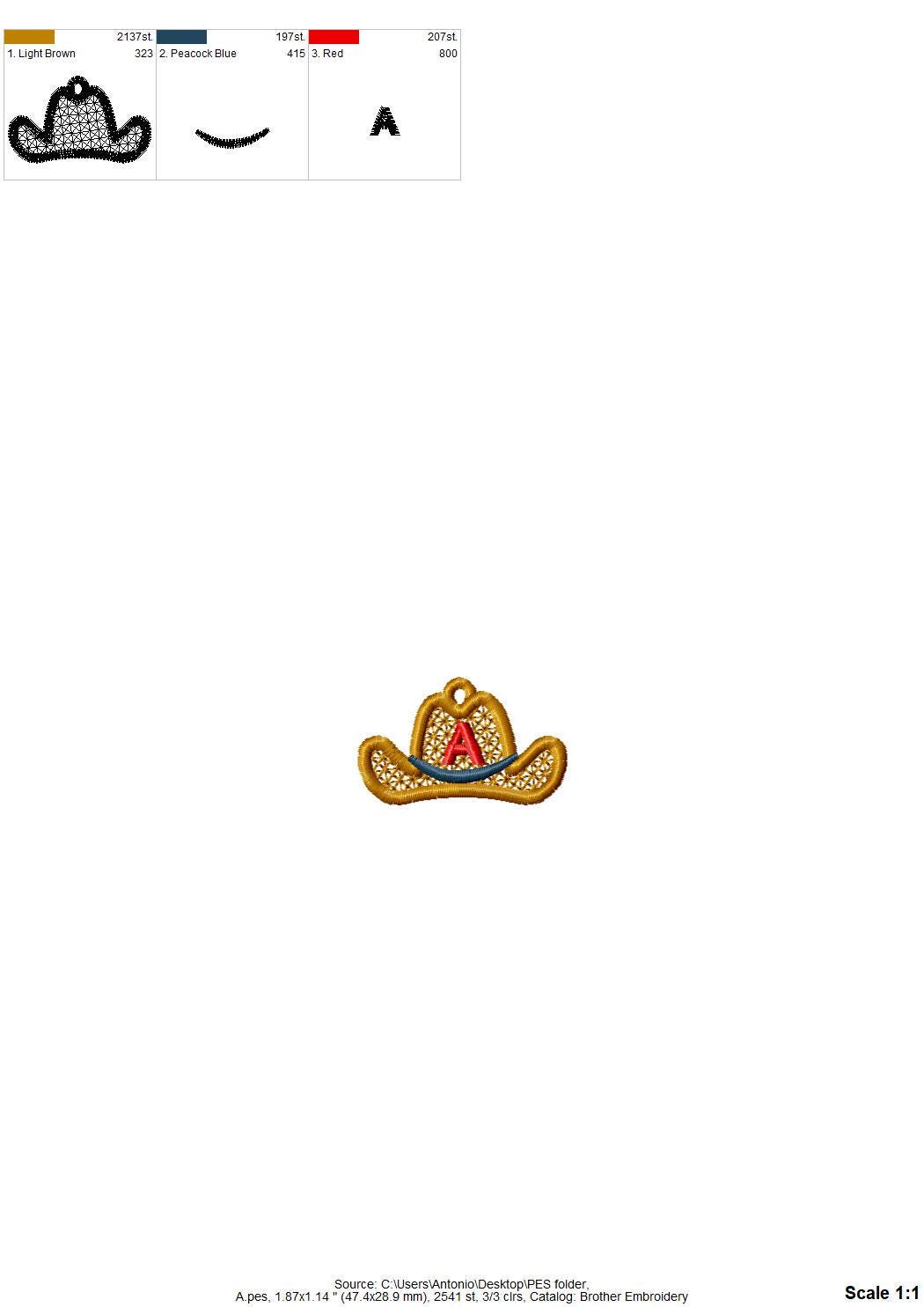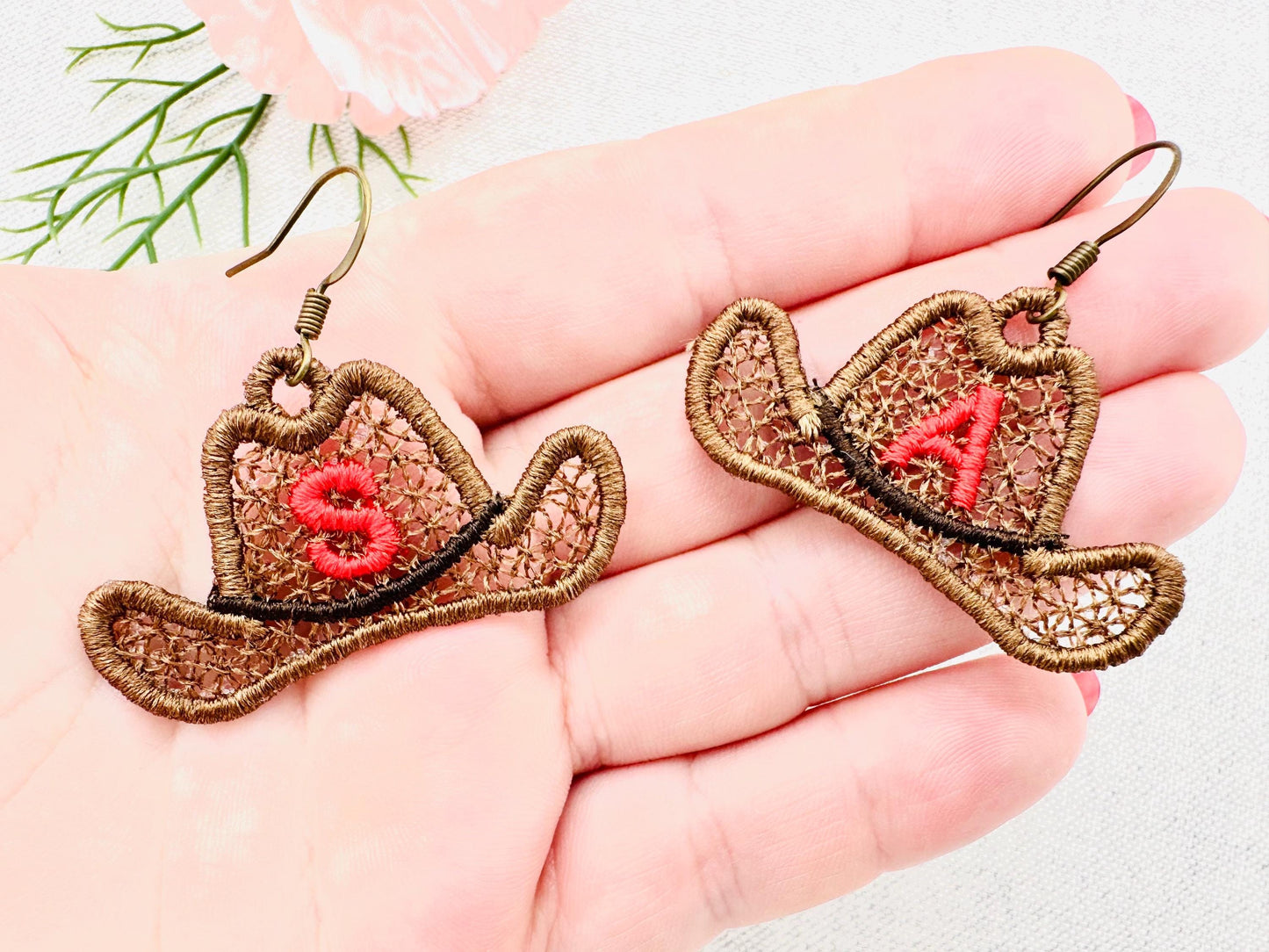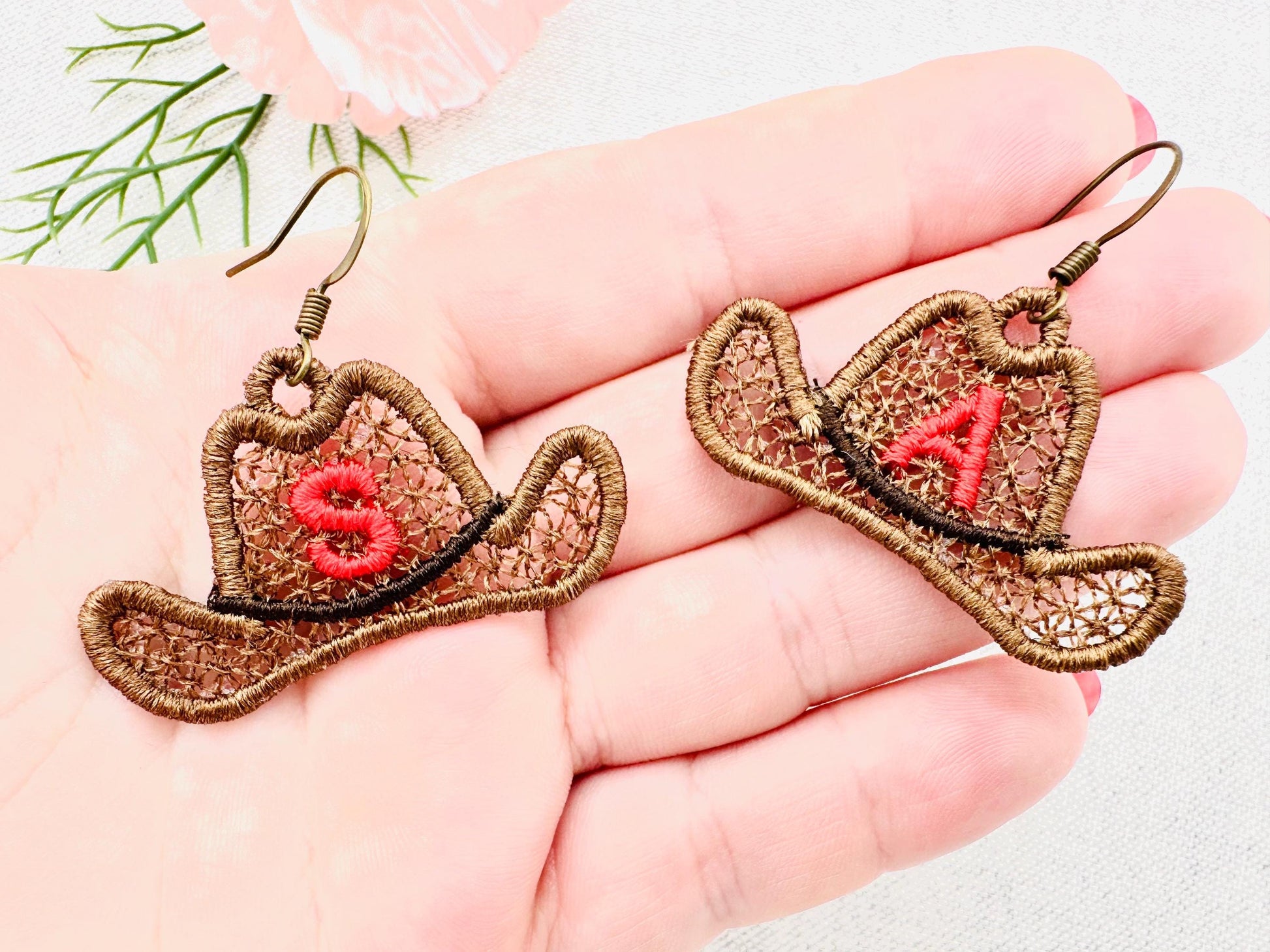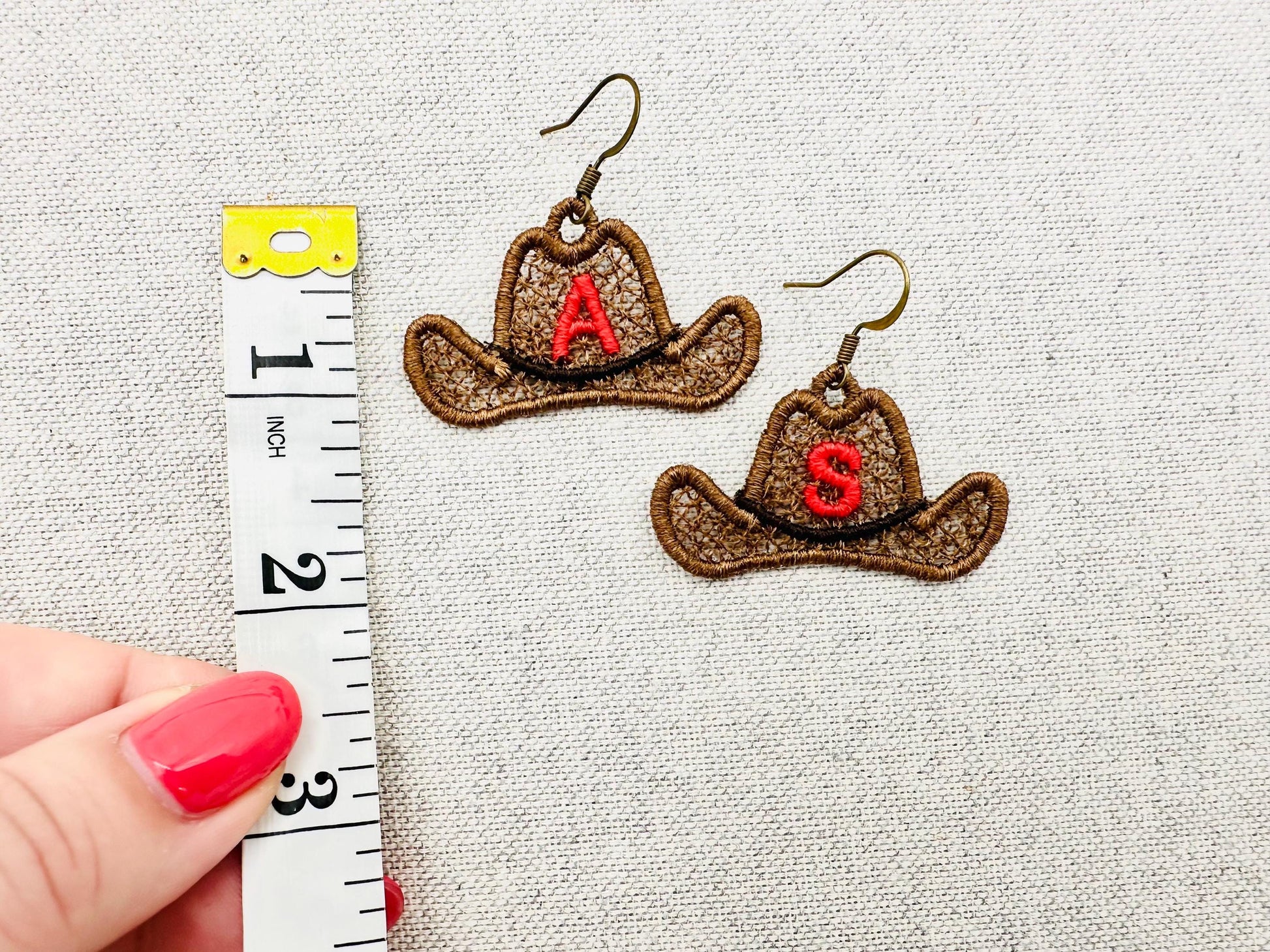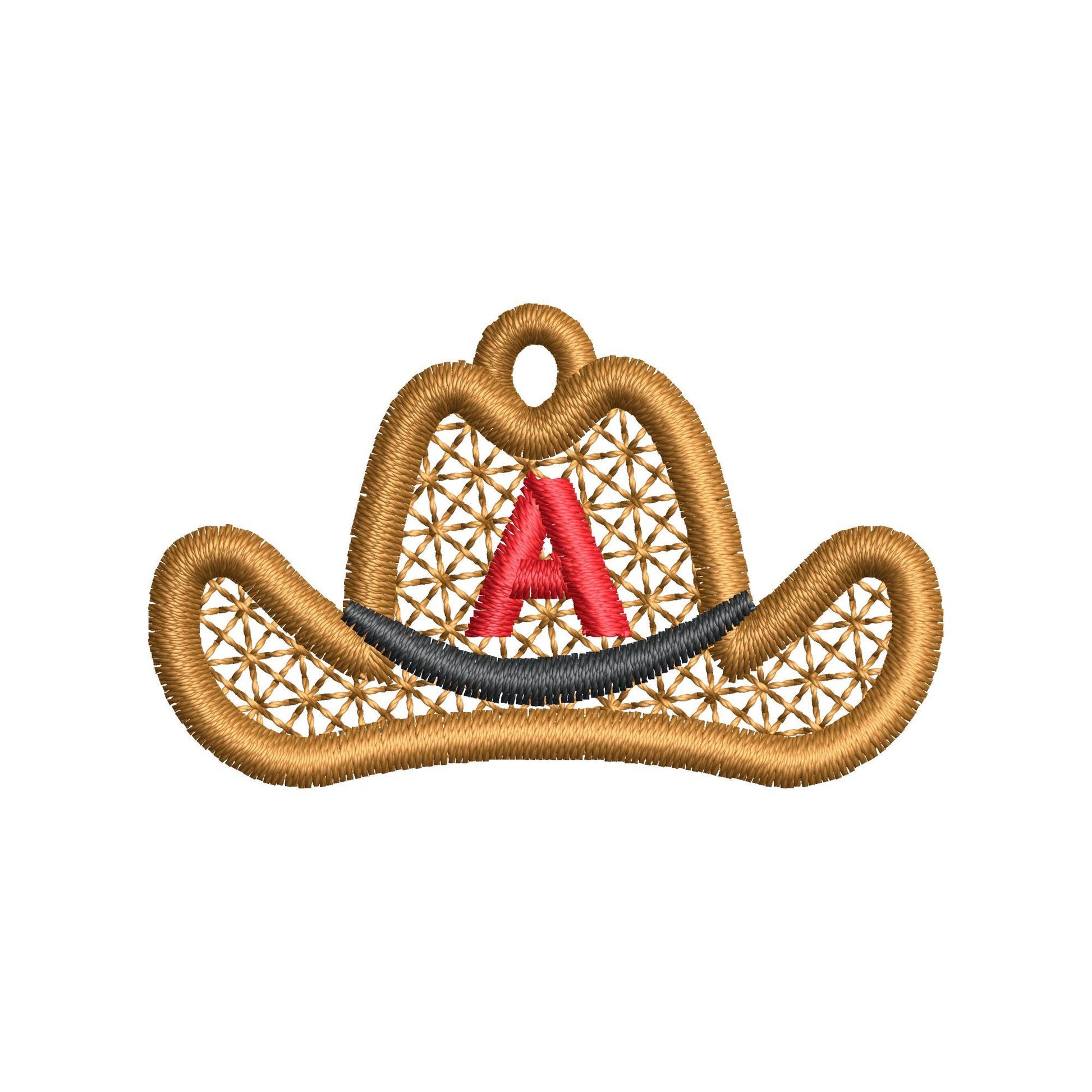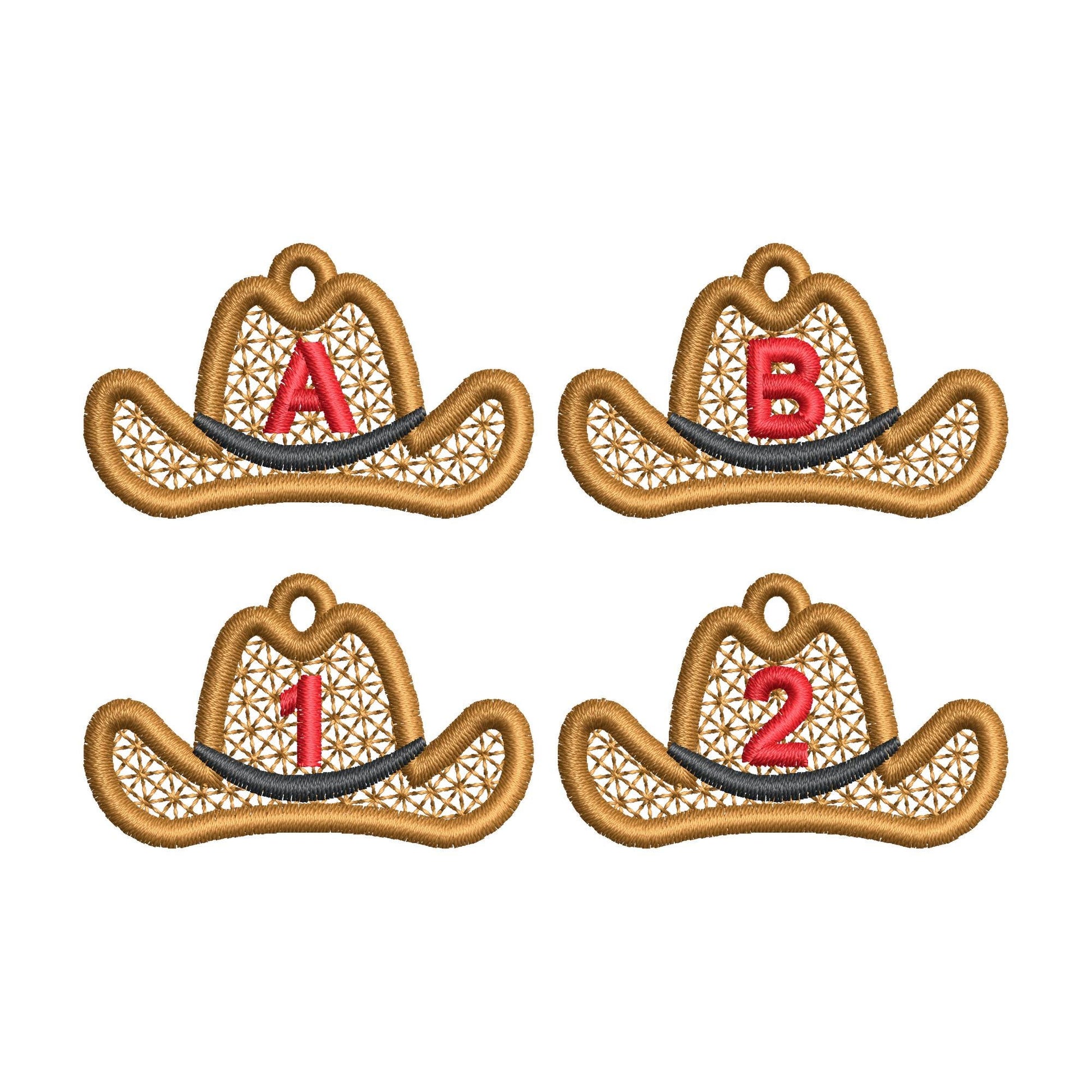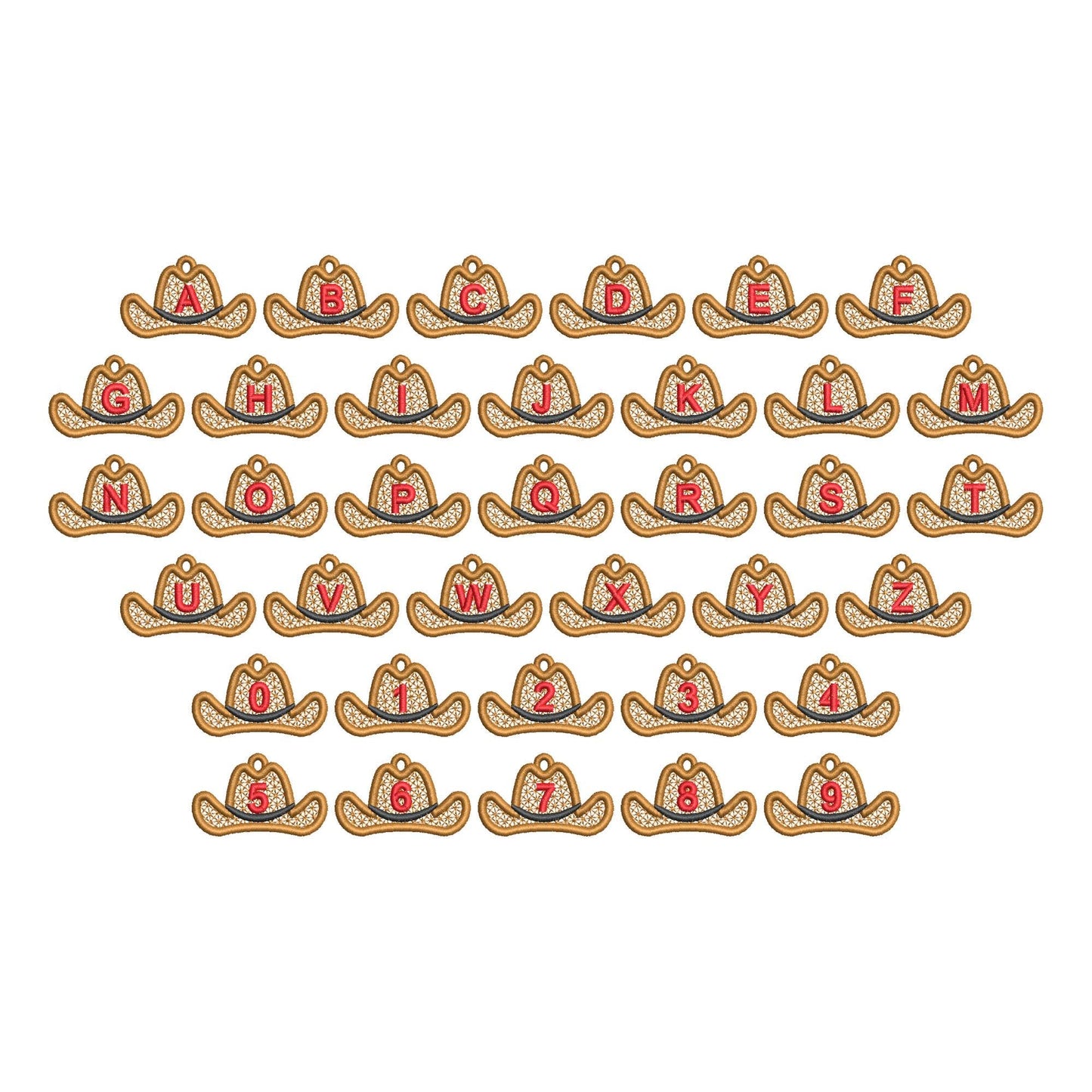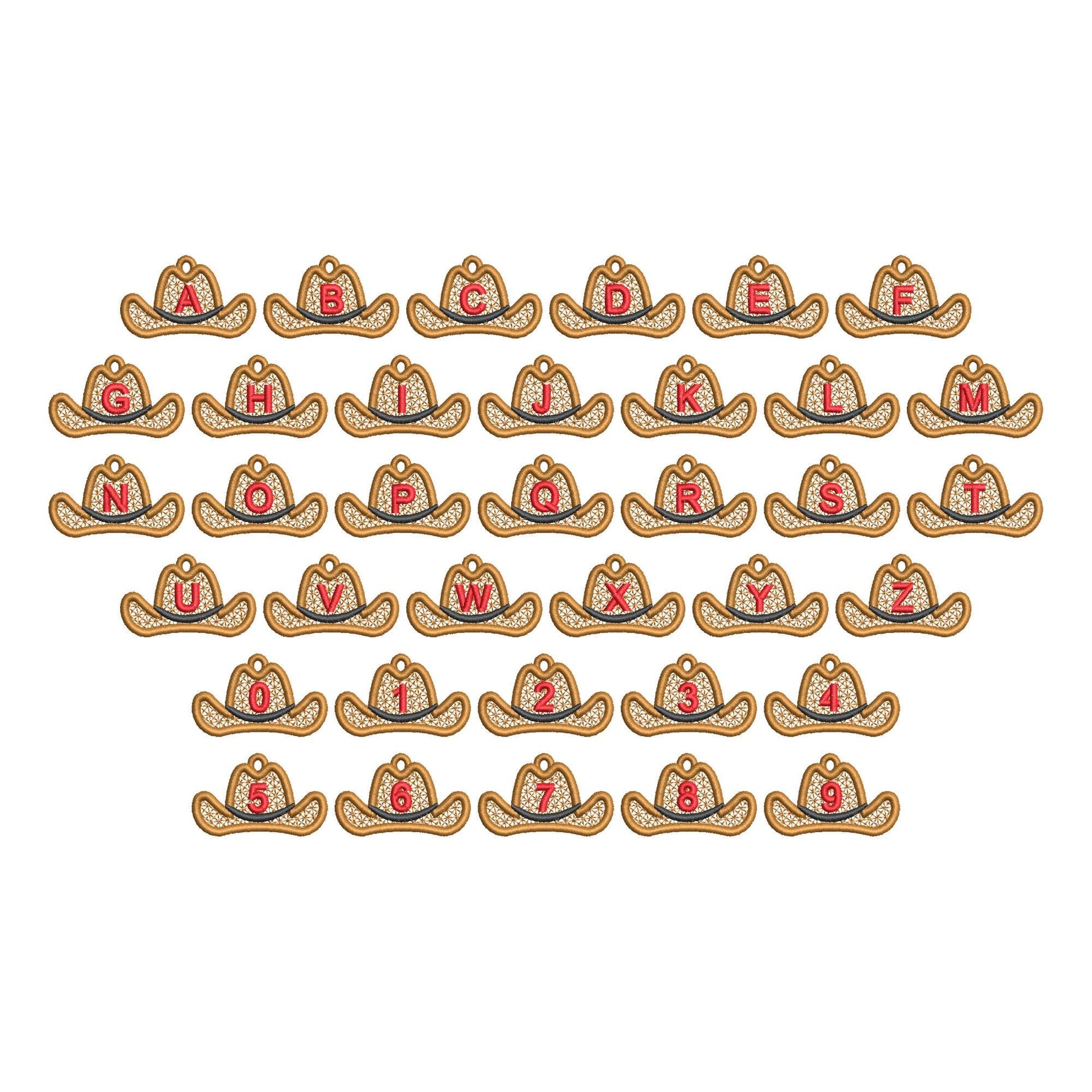
Cowboy Hat with Monogram FSL
Or click to open the linkA tiny cowboy hat with a letter or number hanging below, made in freestanding lace. Makes sweet earrings, charms, zipper pulls and small western gifts.
Each charm is about 2 inches wide. The set covers uppercase letters A-Z and numbers 0-9. Stitched on water-soluble stabilizer, it becomes a light lace piece once the stabilizer is rinsed away.
- Freestanding lace cowboy hat charm
- Uppercase A-Z and numbers 0-9
- About 2 in wide